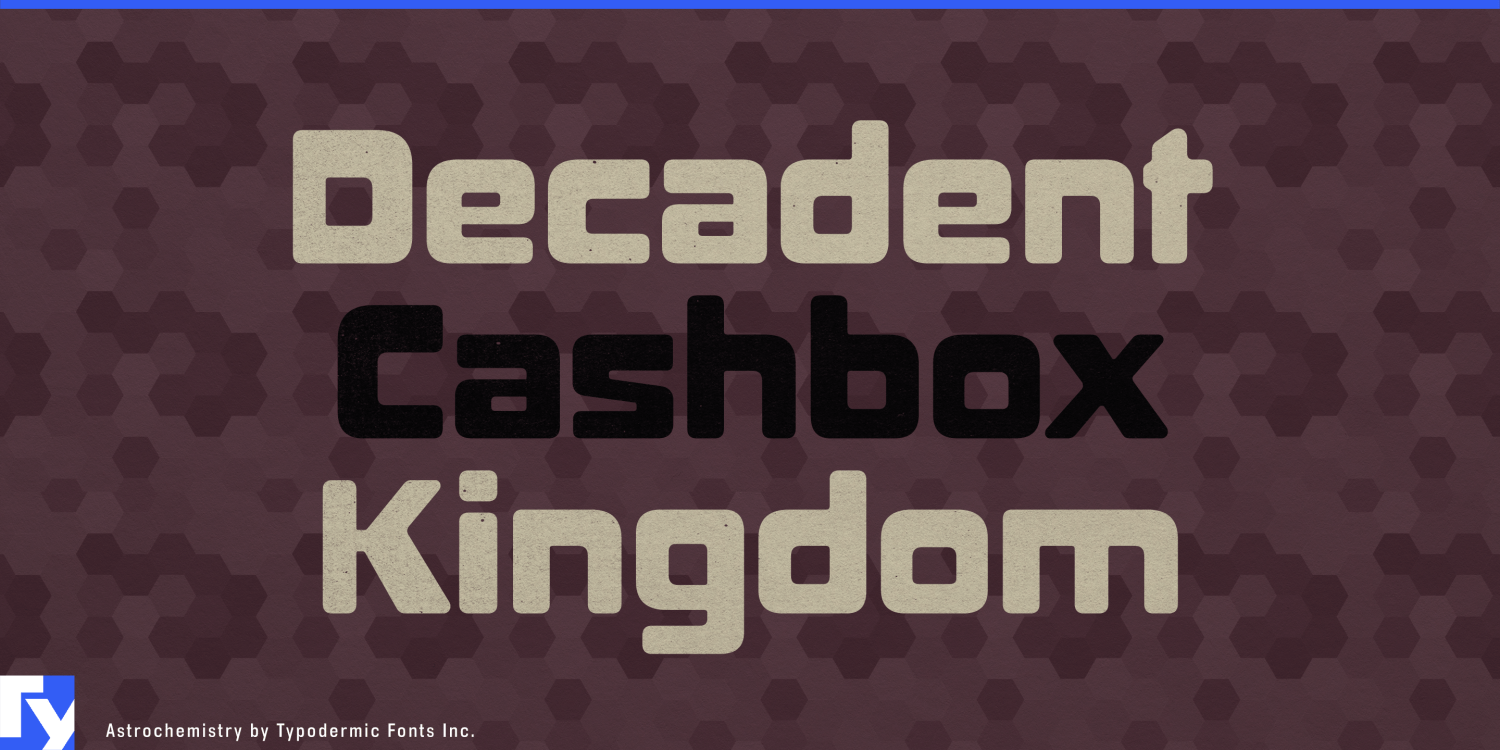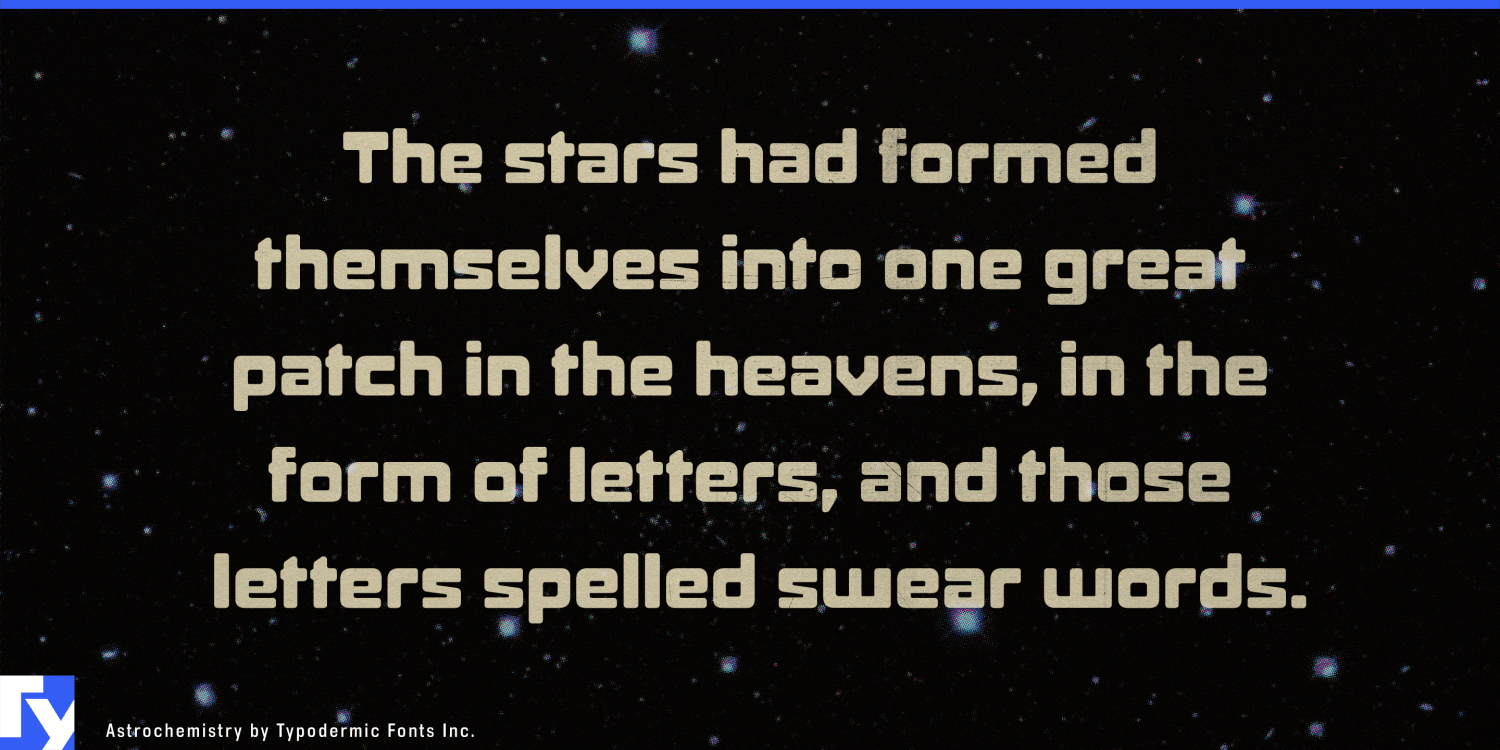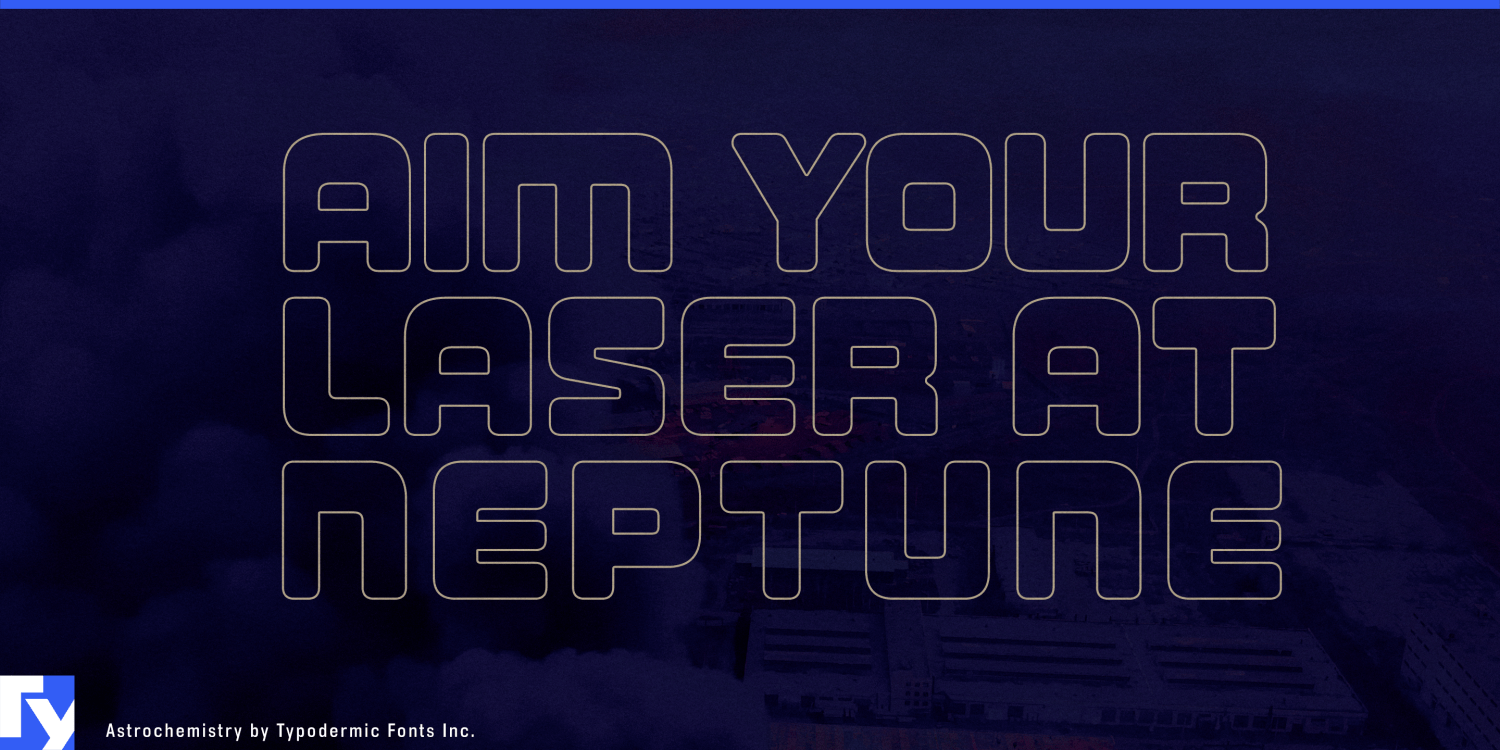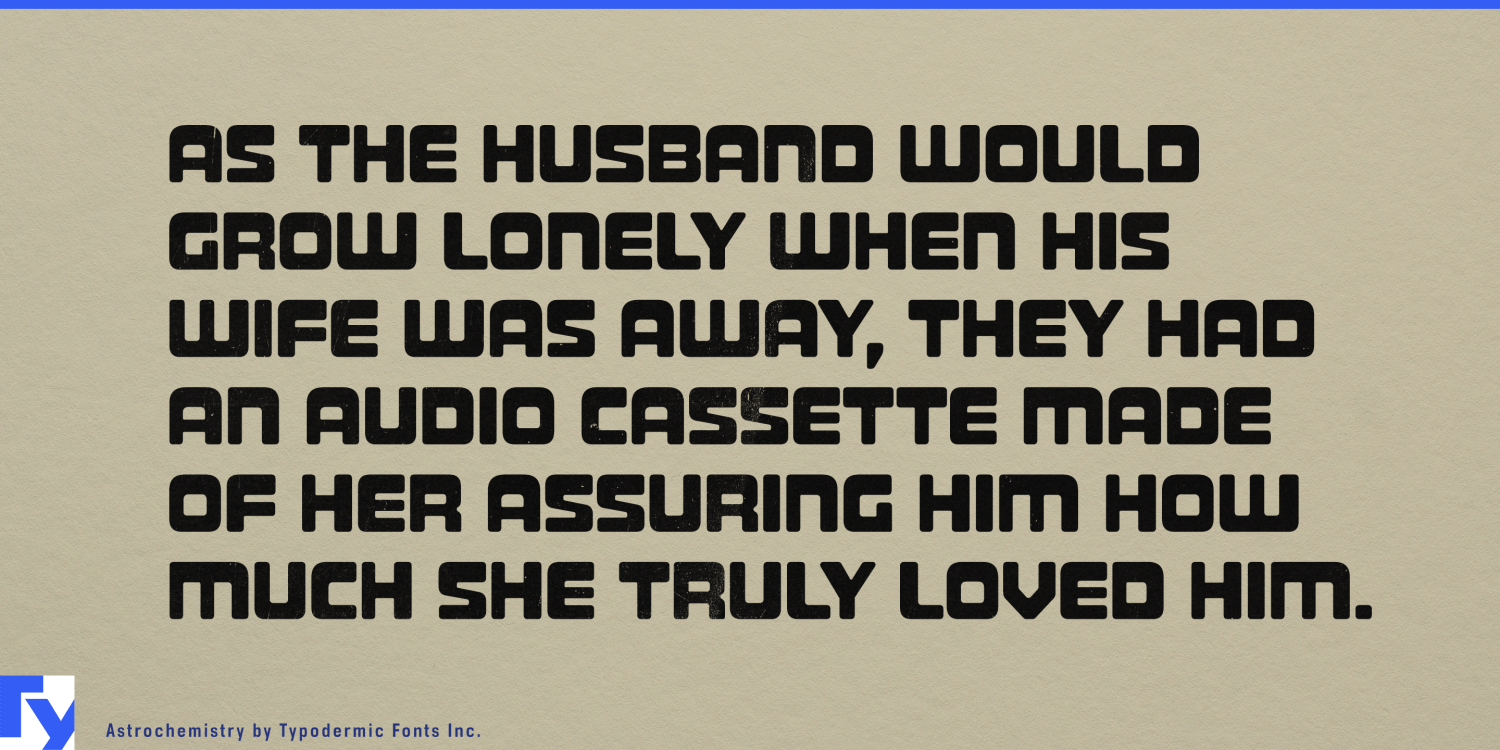
About Astrochemistry
Launch your designs into orbit with Astrochemistry, a typeface that defies gravity and ignites imagination. This hefty, square-jawed marvel transforms mundane messages into celestial declarations. Astrochemistry’s bold, angular forms create headlines…